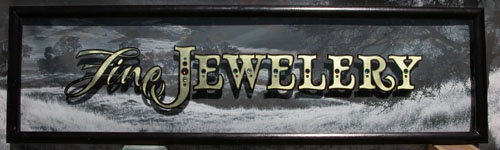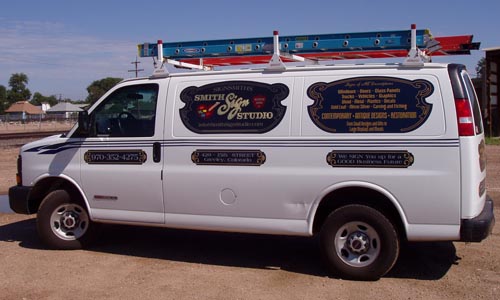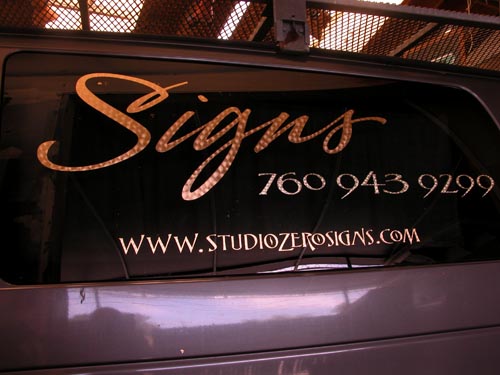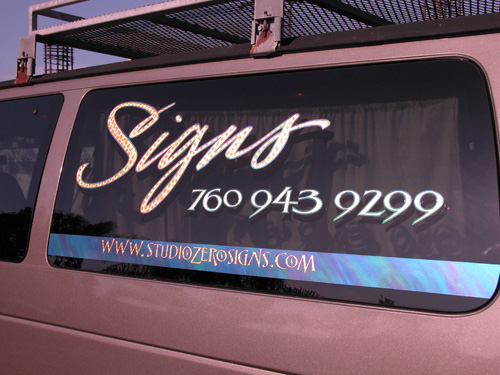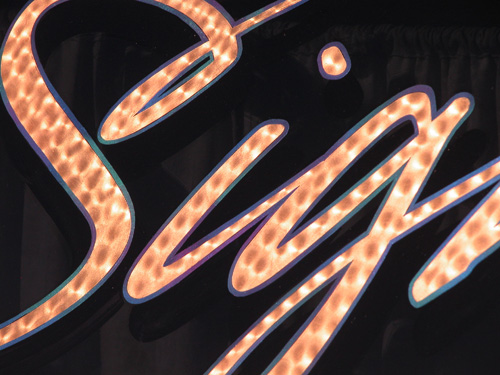
As a Steve Parrish era artist I would appreciate any input which supports the fact that genuine gold leaf on glass is superior to the vinyl gold products. My portfolio of glass examples and work shown on this site do a fine job but frequently clients can only see price. Thanks for any assistance in making the case for gold on glass. Bob
As far as I am concerned there is no substitute for gold leaf on glass. If there were, water gilding on glass would be truly a lost art only done for/by sign artists for their own collections and at sign meets. I don't sell alot of gold leaf glass windows locally but I always try to see if they are interested in it. I never give up trying. It will all depend on were you do business if they appreciate it. For instance if you were in New York City or San Francisco you might have a better chance of selling a job. Where I live it is very hard to sell it for what it's worth.
If clients only see the price that's ok if they buy, but when you know they won't pay that much it's better to move on to the cheaper products.
Heres a photo of one I did years ago for a jewelery store where I live. I traded jewelery for my wife for it .It was the only gold window in town then he moved.
As far as I am concerned there is no substitute for gold leaf on glass. If there were, water gilding on glass would be truly a lost art only done for/by sign artists for their own collections and at sign meets. I don't sell alot of gold leaf glass windows locally but I always try to see if they are interested in it. I never give up trying. It will all depend on were you do business if they appreciate it. For instance if you were in New York City or San Francisco you might have a better chance of selling a job. Where I live it is very hard to sell it for what it's worth.
If clients only see the price that's ok if they buy, but when you know they won't pay that much it's better to move on to the cheaper products.
Heres a photo of one I did years ago for a jewelery store where I live. I traded jewelery for my wife for it .It was the only gold window in town then he moved.
Big surprise that I prefer the real thing. Having said that, there certainly is a place for more "common" work for the "common client". That makes the real gold sign that much more effective. I always say, don't try to sell gold itself to your clients, make it a part of your design, price fairly and they will have you do the work. Make gold a material of choce for effectiveness, durability and long term economy, not a material for an upcharge. This is true even in small town America where I live and in a depressed economy.
Case in point, I just finished phase 5 of lettering our new van with leaf of course. I have received more comments from customers in the last month than I have in many years. One in particular said, "wow, that looks great, glad to see you are still around and come by so we can do the same to my trucks". Turns out many have thought I got old and retired, just driving the old van around for fun I guess and now they are aware of us again. The gold though is what is really attracting the attention, just as we all know it will.
Re: Gold leaf on glass versus vinyl gold products
Let's see a photo of the van ! I have long contimplated lettering mine. Maybe this will inspire me.
Re: Gold leaf on glass versus vinyl gold products
I edited and here is a phase 5 photo (did not realize the first one was not edited yet)...still have outlines, some shades, etc. to do. As a used van it came with the wrinkle which is due for repair later this summer.
- other side has spin burnish and rear is reflective
Re: Gold leaf on glass versus vinyl gold products
I think everybody should buy some Signgold glass
version just so you can show the customer the
difference. Because I think Signgold (probably)
has the closest thing to to real gold, but what
I saw was not very impressive at all.
So Kent, did you clearcoat the van job? What did you
Just got back from the hot rod show and snapped a few photos of the van with the new sign. I think the next car show I go to I'll have something to work on while I'm there. It might get more attention.